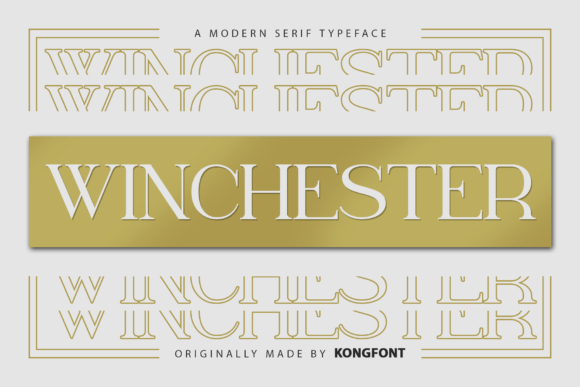
Winchester - Western Serif Font for Rustic Logos & Signage
Winchester is a distinct serif font characterized by its clean, balanced letterforms and timeless serif styling. It delivers a professional, elegant feel without unnecessary ornamentation, making it suitable for both modern and classic design contexts.
Whether you’re building a brand identity, designing packaging, or laying out editorial content, Winchester’s clarity and structure give your text a strong, refined presence. It’s a serif font that reads well — whether used at headline size or in print‑ready layouts — bringing a sense of confidence and style to your designs.
- Classic serif aesthetic — timeless, elegant, and professional
- Versatile across uses: works well for branding, print, editorial, packaging, and digital contexts
- Readable and clean — suitable for both headers and larger copy blocks or display text
- Gives designs a polished, trusted look — ideal for small businesses, print products, books, or premium branding
Q: Is Winchester good for long‑form body text as well as headings?
A: Yes — its clean serif design and readability mean it works well for both headers and body text, especially in print or editorial layouts. -
| Serif Style | Clean, balanced serif — classic and refined | Traditional serif — may have more ornament or classic serif traits | Modern serif/slab serif — heavier weight, bold presence |
| Readability | High — clear even in smaller sizes or detailed layouts | Very good for long body text, classic readability | Good for headings, may be heavy for body text |
| Visual Vibe | Professional, elegant, timeless | Classic, traditional, book‑like | Bold, strong, modern/trendy |